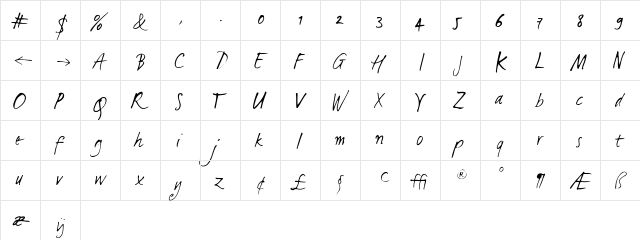
LucasHandFeetLight Medium Font Preview
| Foundry | Luc(as) de Groot, |
Design Context for LucasHandFeetLight Typeface
LucasHandFeetLight brings a calligraphic fluidity to the page — its connecting strokes and expressive curves give it an unmistakably human quality. Its slender proportions lend an understated elegance to any composition.